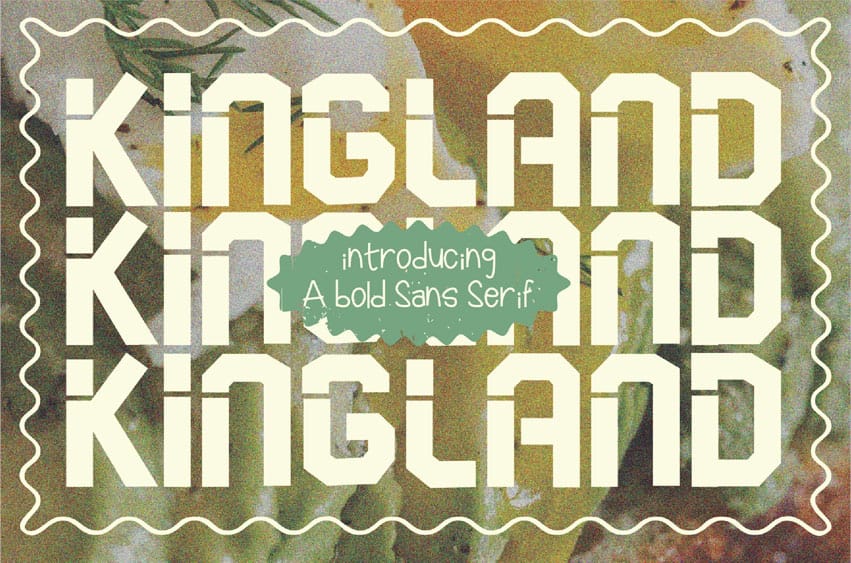
Kingland Font is a bold, fun font designed with kids in mind. Its friendly, rounded shapes and lively character make it perfect for children’s books, party invitations, toys, and more. Kingland adds a royal touch of playfulness to any project, bringing joy and energy to your designs!